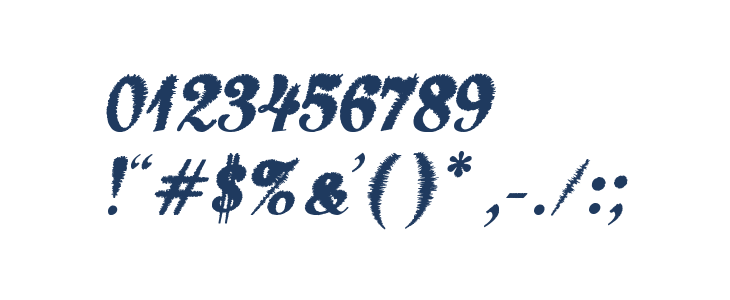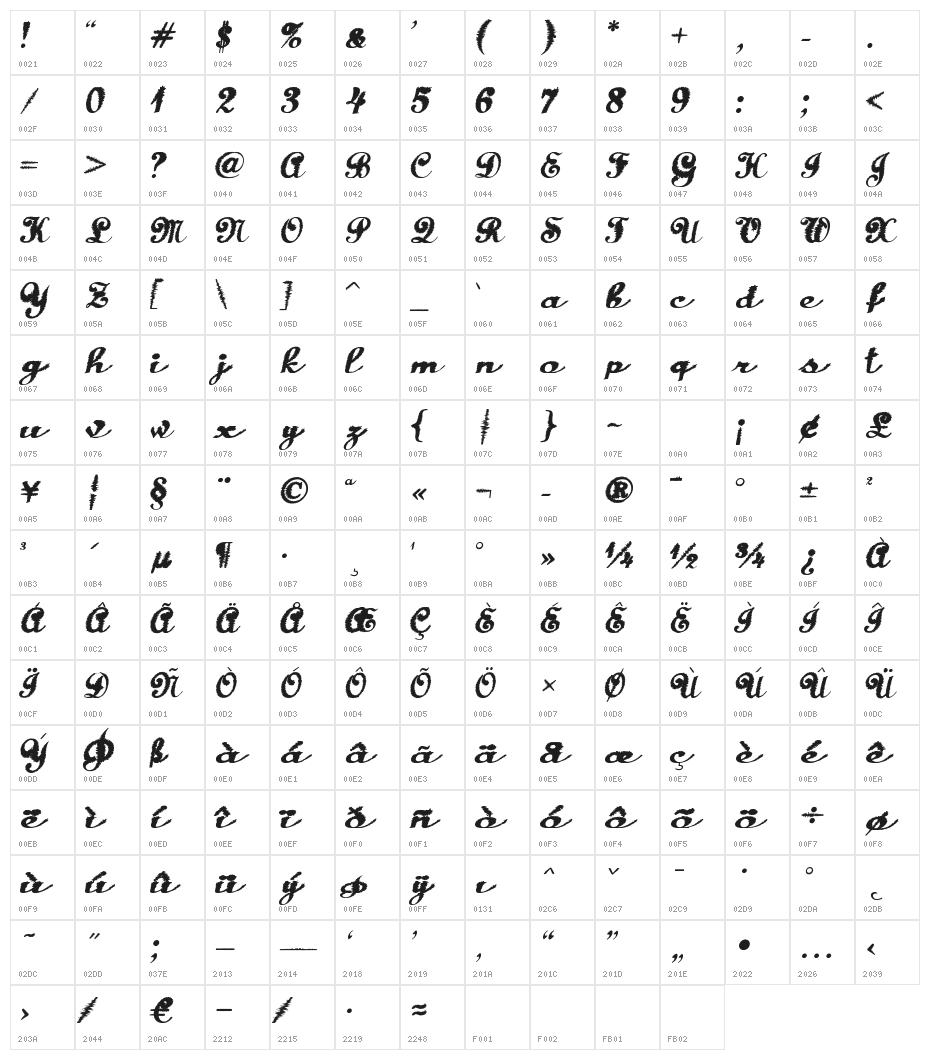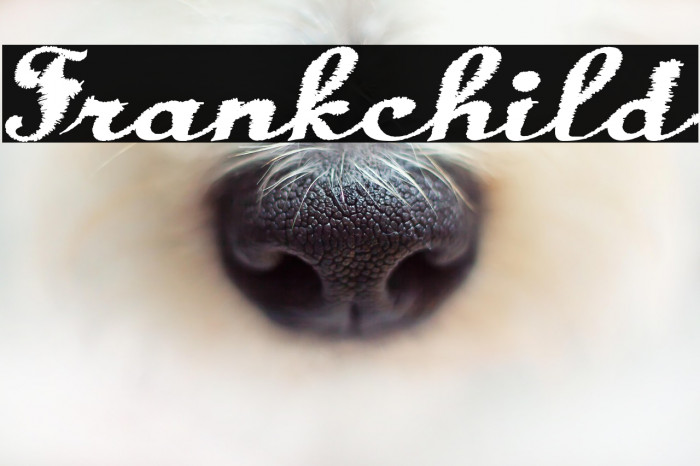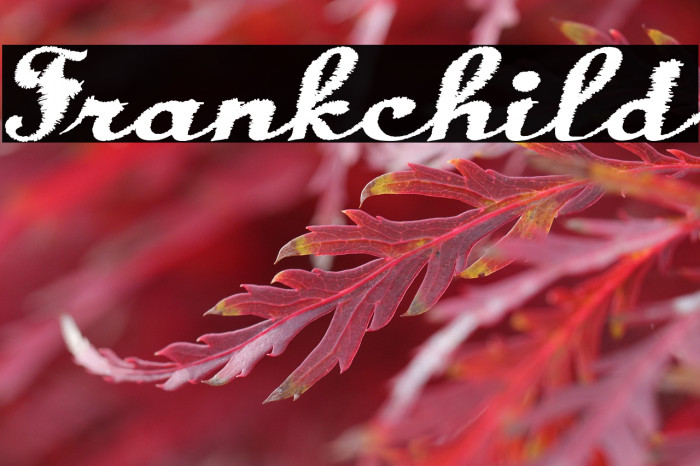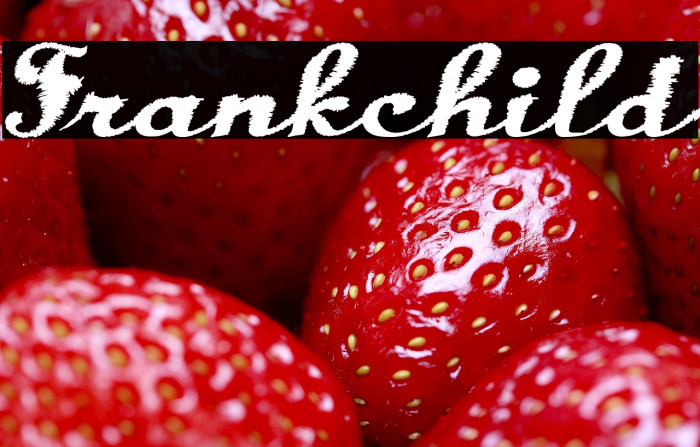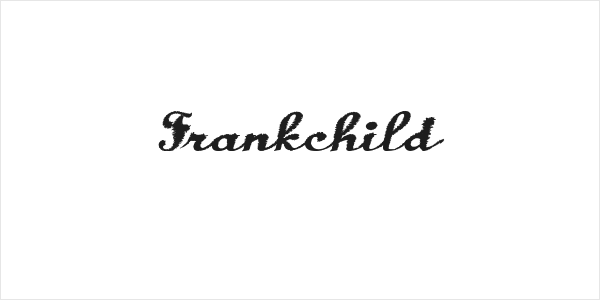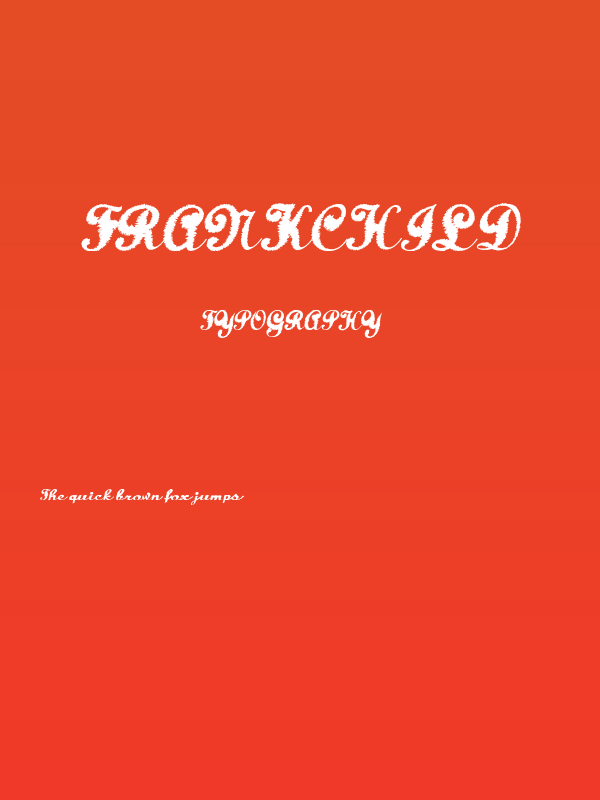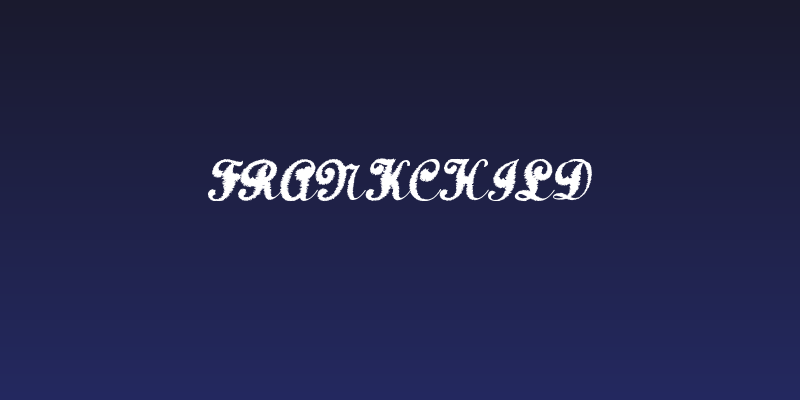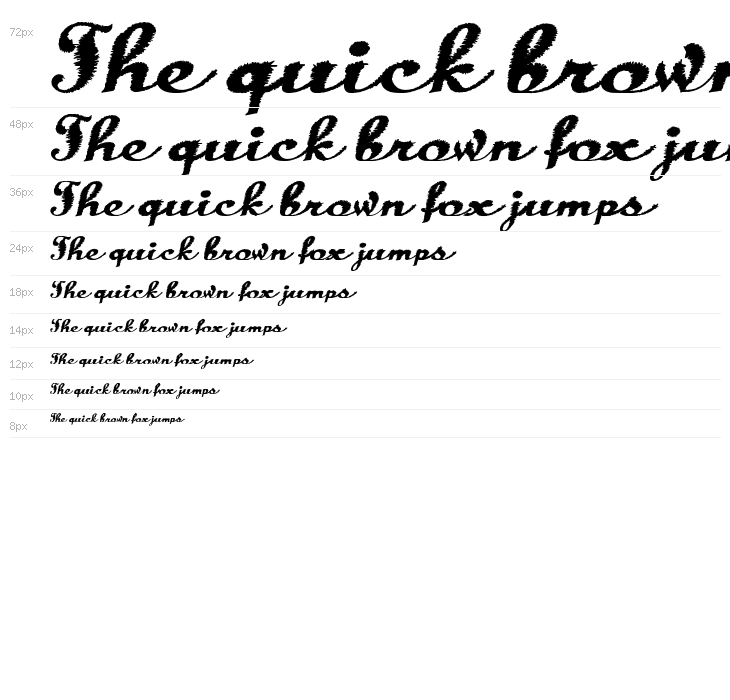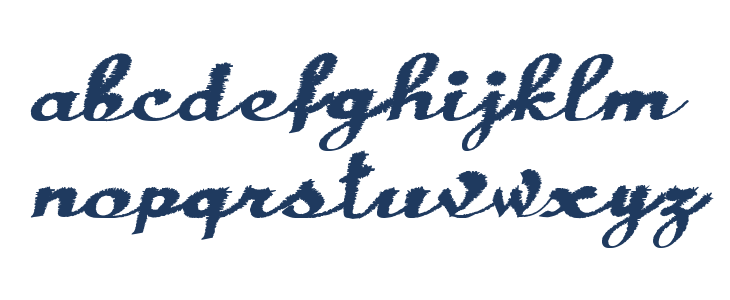
Frankchild Font
Frankchild Description
This font features a unique and bold design with a textured, brush-like appearance. Each character is crafted with a dynamic and energetic style, giving it a sense of movement and flair. The uppercase letters are particularly striking, with swirling strokes and a slightly jagged edge that adds to the font's dramatic impact. The lowercase letters maintain this energy, providing a cohesive look across all text. Numbers and special characters are equally bold and expressive, making them stand out in any design. This font is perfect for projects that require a strong visual presence and a touch of artistic flair.